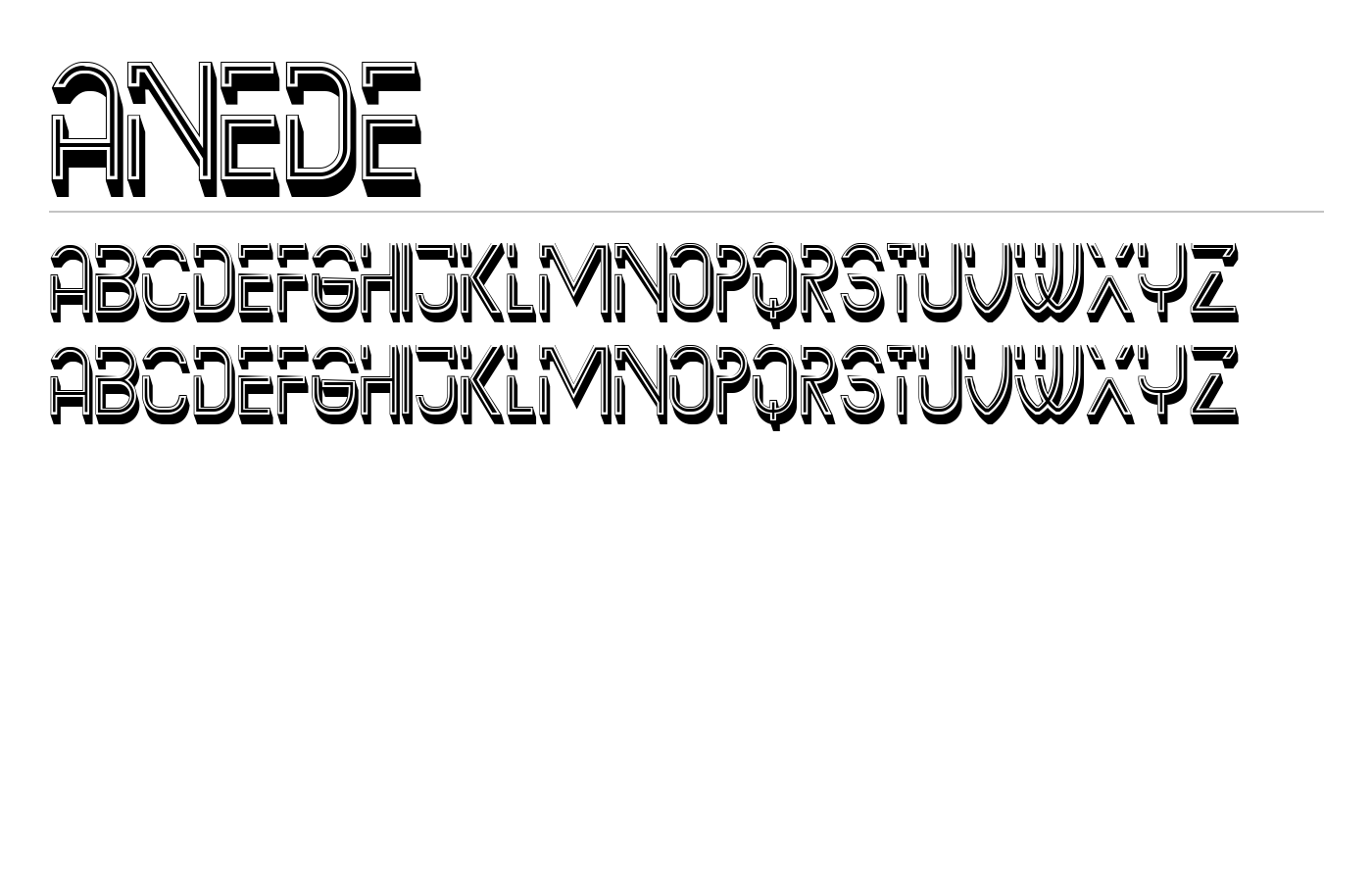
Anede is a bold and geometric sans serif font with a striking layered shadow effect that adds depth and visual interest. Its uppercase letters feature consistent widths and clean lines, giving it a modern, industrial feel that works well for display purposes such as logos, posters, and headlines where a strong, eye-catching presence is desired. This font’s unique, futuristic style makes it a great choice for brands seeking a distinctive, contemporary look.
Anede Font
About Anede Font